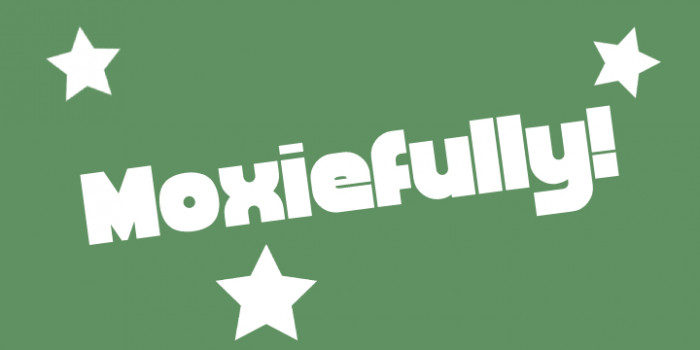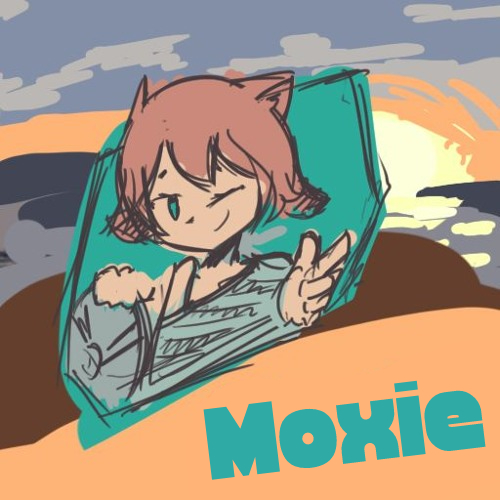
Good work. Nice use of my "zurprizlit" and other similar fonts. I think you could think of reducing the descenders (tail of the Q, j, p, q, y, @...) to homogenize them with the ascenders of the rest of the glyphs (b, d, etc), IMHO.
@elmoyenique: Yes! i kinda use yours is "zurprizlit"!
Moxiefullyby SwedishTypeCorporation